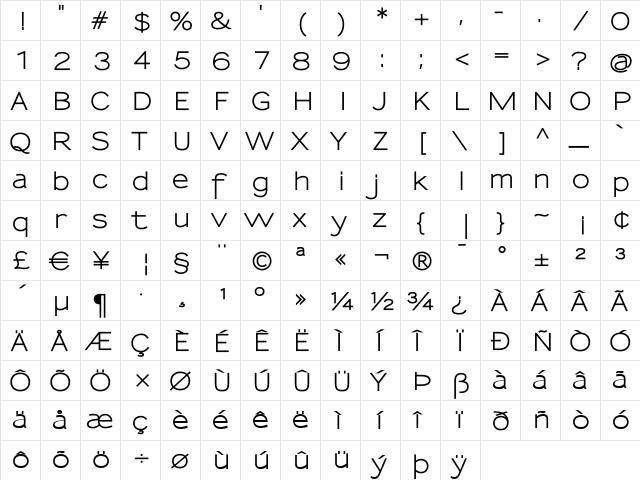
Sansumi Regular Font Preview
Sansumi Regular
Sansumi Regular Font Details
Design Context for Sansumi Typeface
Sansumi takes a measured approach to typography — its balanced proportions and neutral character make it a reliable workhorse for both digital and print work.